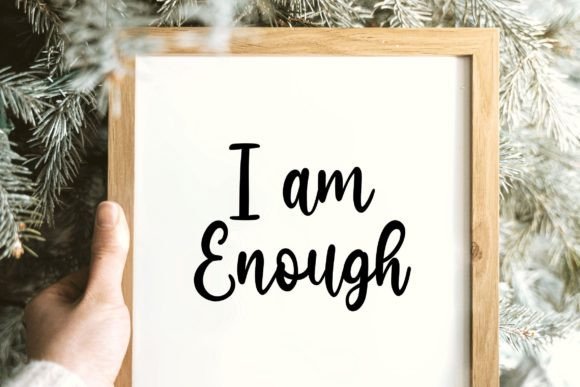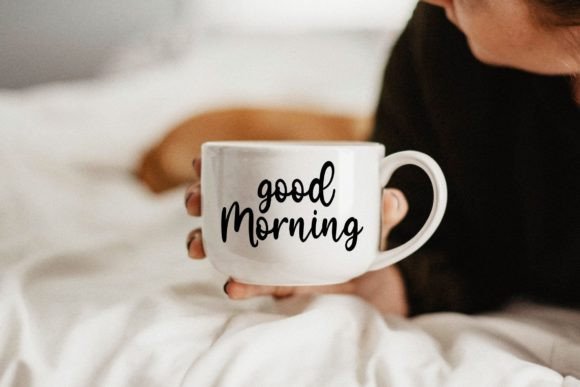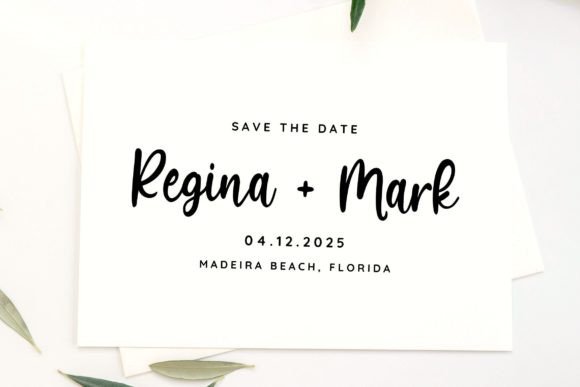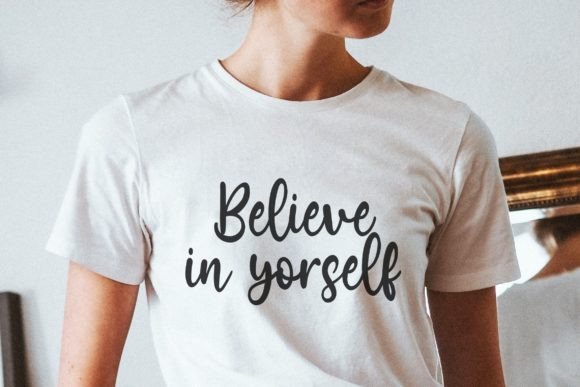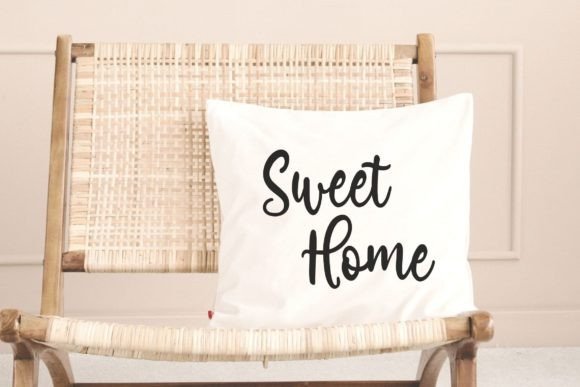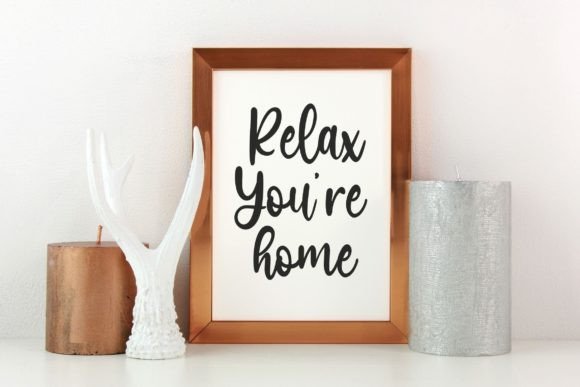
Introduction to Joyful Things Font
Joyful Things is a beautiful handwritten font with elegant and simple lines.
It is perfect for wedding invitations, craft stuff, branding materials, promotional flyers, social media templates, T-shirts, and more .
Key Features of Joyful Things Font